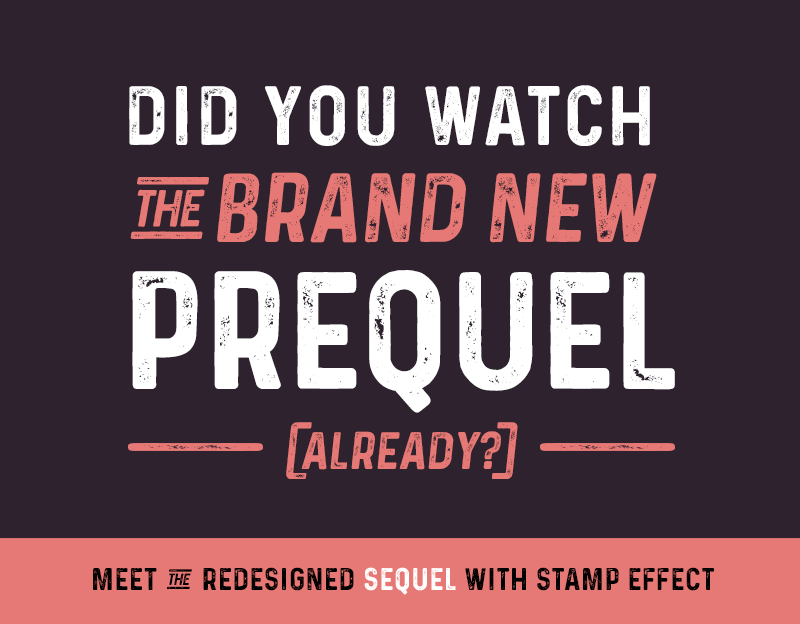
Preview and download Prequel Font. Created by Phitradesign in Fancy Eroded styles with Free for personal use license.
Meet the redesigned "Sequel" with many new, vintage touched letters and a cool rough stamped style. This font is free for personal use ONLY. You can get a standard license for commercial use for just 12$ here: www.phitradesign-fonts.com/prequel This is the demo version. The full version has all numbers, many symbols and language support with over 330 glyphs in total! The full version is included if you buy a license. If your company has more than 10 members you need to buy an extended license. For that please contact me via my website or directly via email to: license@phitradesign-fonts.com |